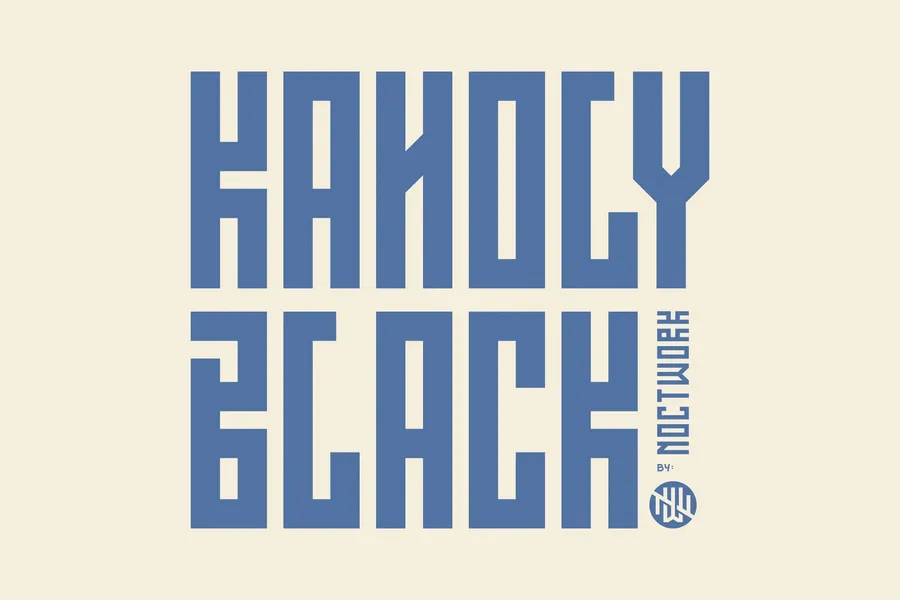
Kaholy NW Black Condensed Font
Features : Small-Caps, Salt, Calt.
Includes a range of multilingual characters.
Kaholy Black Condensed Font is suitable typeface for various purposes like logotype, signage, label, poster, dropcap, titles, letterhead, book cover and etc.